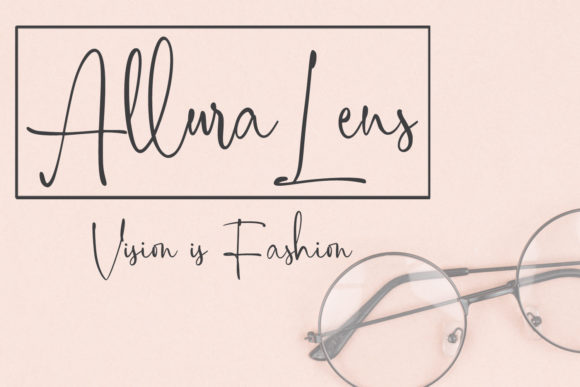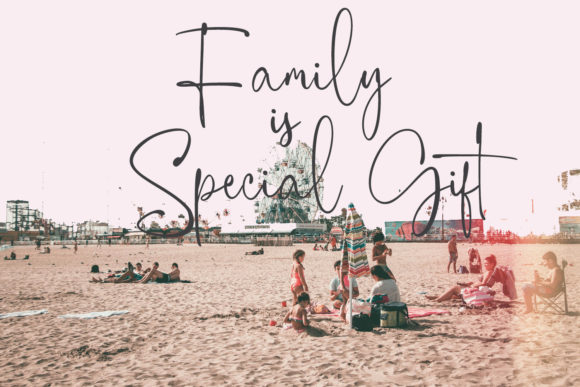
Bondegrass Script Font
db-ku.com - Script & Handwritten -- Bondegrass Script is a fancy handwritten script font. Whatever the topic, this font will be a wonderful asset to your font library, as it has the potential to enhance any creation.